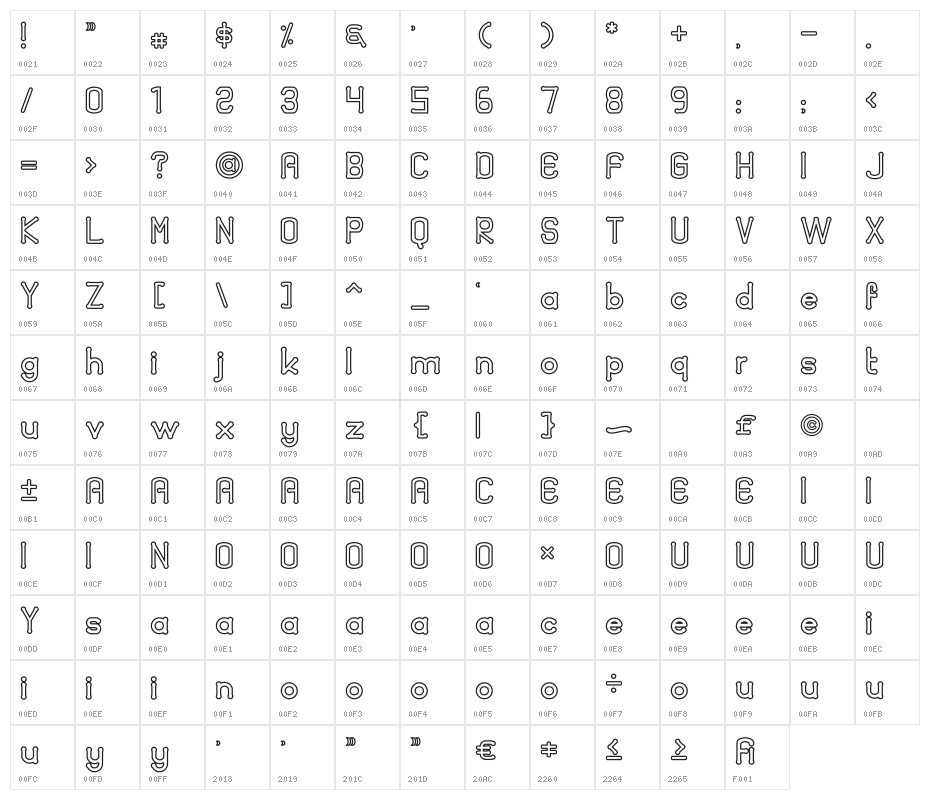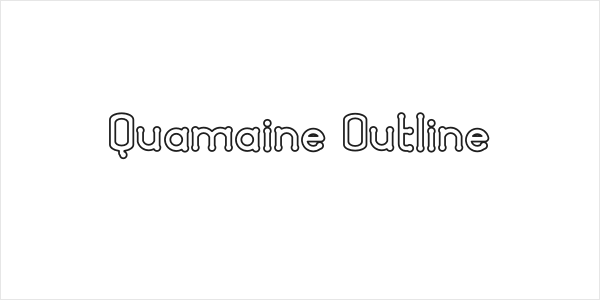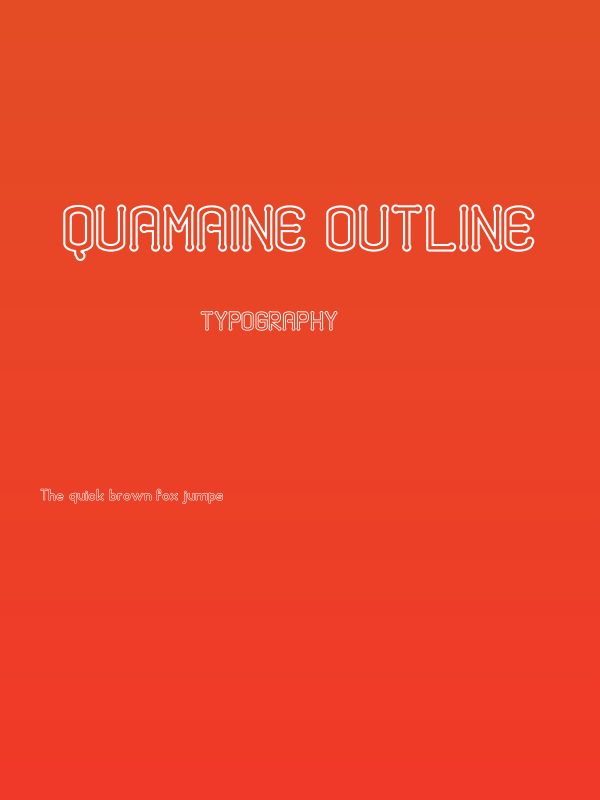
Quamaine Outline Font
Quamaine Outline Description
This font features a unique outline style with bold, rounded edges that create a striking visual impact. The uppercase and lowercase letters maintain a consistent width, giving the font a uniform appearance. The numbers and special characters are designed with the same outline effect, ensuring cohesion across all characters. The font's playful and modern aesthetic makes it suitable for a variety of creative projects. Its clear and legible design is ideal for headlines, posters, and branding materials where a bold statement is desired. The spacing between characters is balanced, providing readability while maintaining its distinctive style.